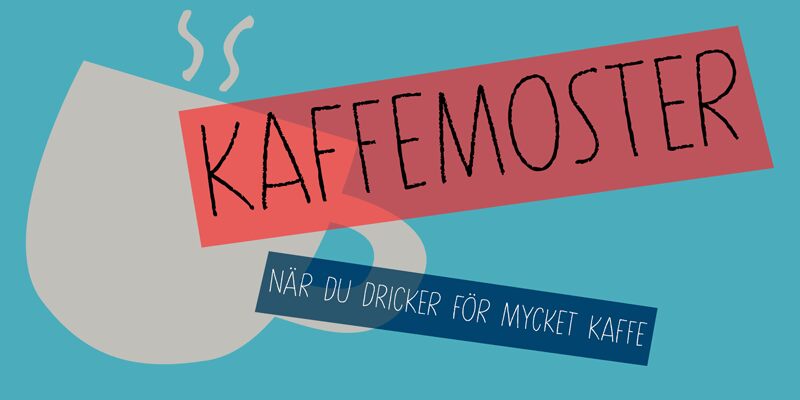
Kaffemoster DEMO Regular
Kaffemoster, crafted by the renowned Hanoded, stands as a testament to the charm of handwritten aesthetics merged with modern design sensibilities. This uppercase block font carries a semi-light weight and a condensed width that makes it both assertive and space-efficient. The handmade pencil touch of Kaffemoster invites an air of authenticity and personal touch to creative projects, resonating with audiences seeking that handcrafted feel.
With its extensive language support-Swedish included-Kaffemoster is remarkably versatile, traversing cultural boundaries with ease. The inclusion of alternate lower case letter sets further enriches its adaptability, ensuring designers can tailor their work to the exact tone required. Kaffemoster is not just a font; it's a gateway to infusing your project with personality and distinction in every curve and line. Ideal for branding, packaging, or editorial designs craving that bespoke character-it's designed to leave an impression.